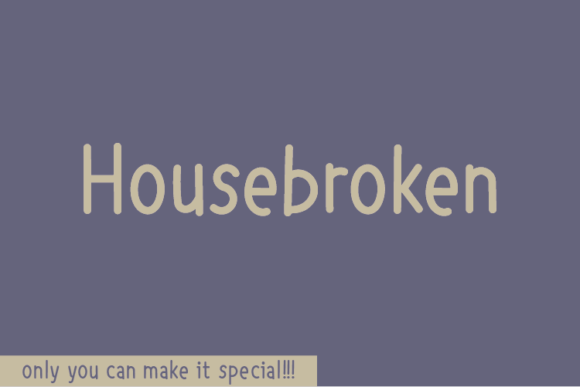
Discover Housebroken, the captivating sans serif font that will leave an unforgettable mark on your designs and tattoos. Crafted with meticulous attention to detail, Housebroken embodies the raw beauty of imperfection, featuring unique indentations that add an organic touch to every character.
Indulge in the allure of Housebroken and let your words take on a life of their own. Perfect for capturing the essence of meaningful quotes, heartfelt notes, and bold product designs, this font will elevate your creations with its undeniable charm and character.
Embark on a journey of artistic expression with Housebroken, a font that will ignite your creativity and make your designs stand out from the crowd. Let the imperfections inspire you, and let the beauty of Housebroken captivate your audience.
Immerse yourself in the world of Housebroken, where every letter tells a story and every design becomes a masterpiece. Unleash the power of this extraordinary font and watch your creations transform before your very eyes. Housebroken, the font that will awaken your imagination and make your designs truly unforgettable.